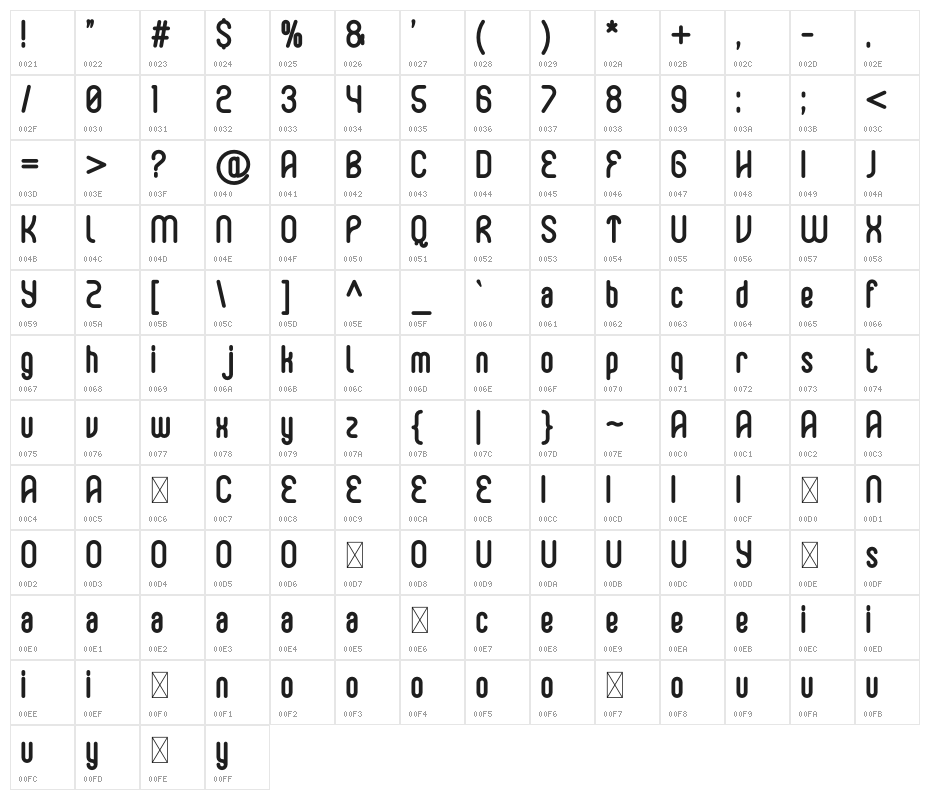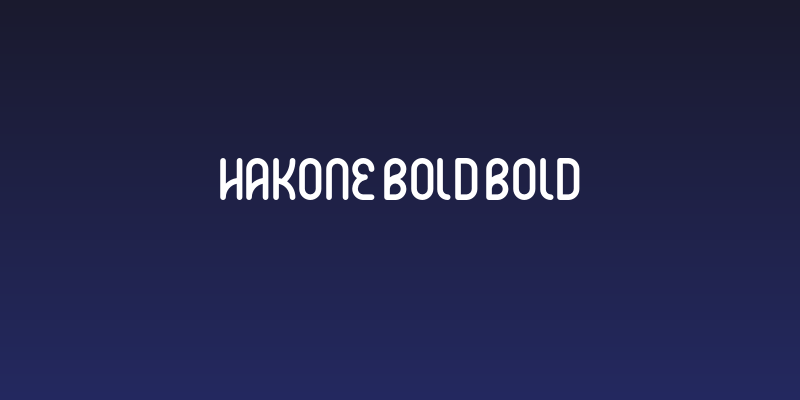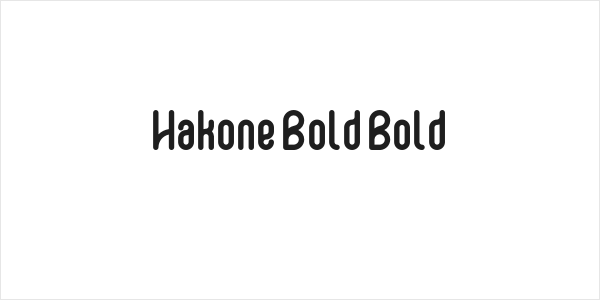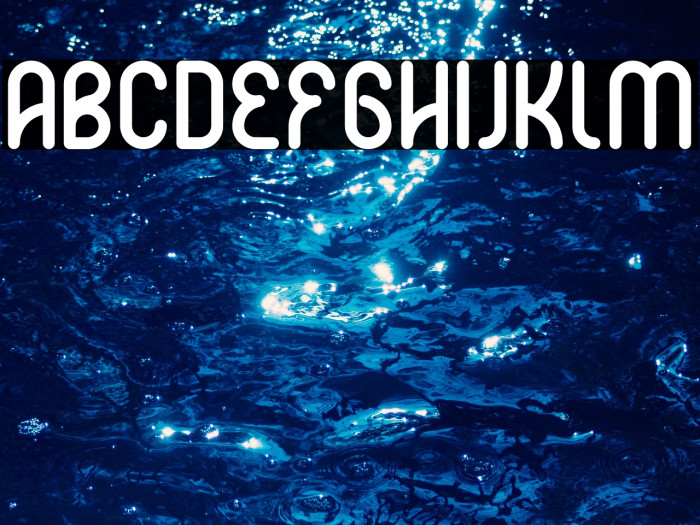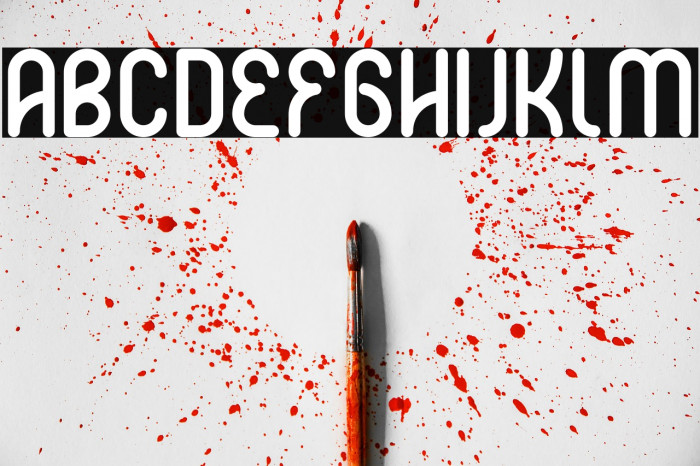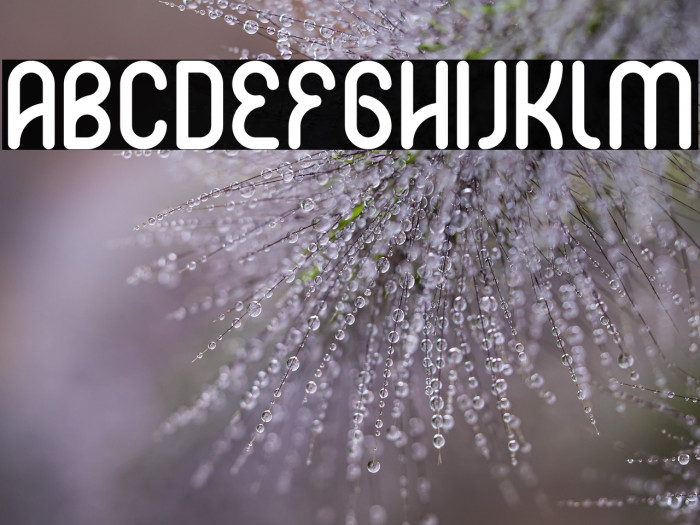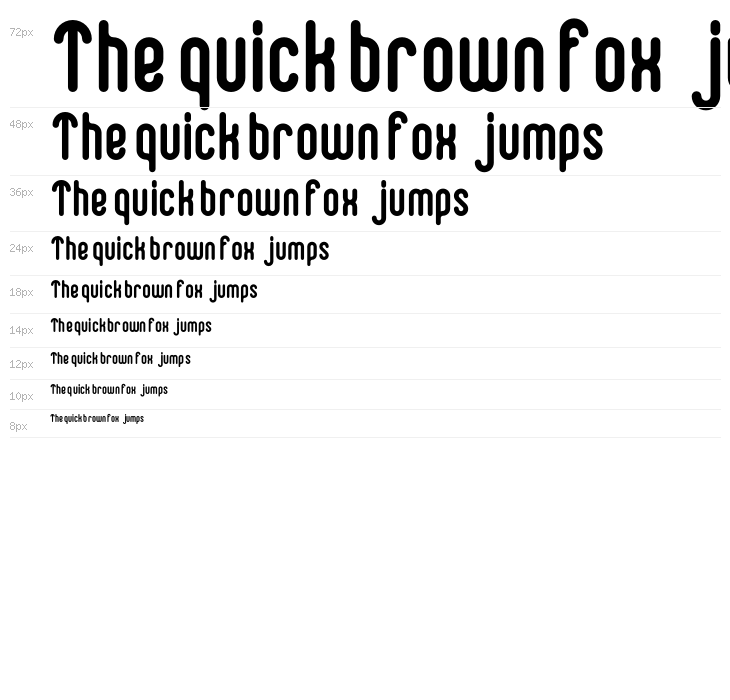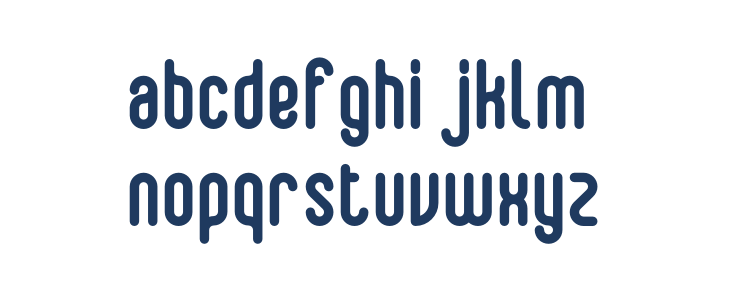
Hakone Bold Bold Font
This font features a bold and rounded style with a modern and playful appearance. The characters are uniform in width, giving it a monospaced feel, yet they maintain a distinct and unique personality. The rounded edges and consistent stroke width contribute to a friendly and approachable look. The uppercase and lowercase letters are well-balanced, and the numbers are clear and easy to read. Special characters are designed to match the overall style, making this font versatile for various uses.
| Proposed Projects | Ideal for branding, packaging, children's books, and playful graphic design projects. |